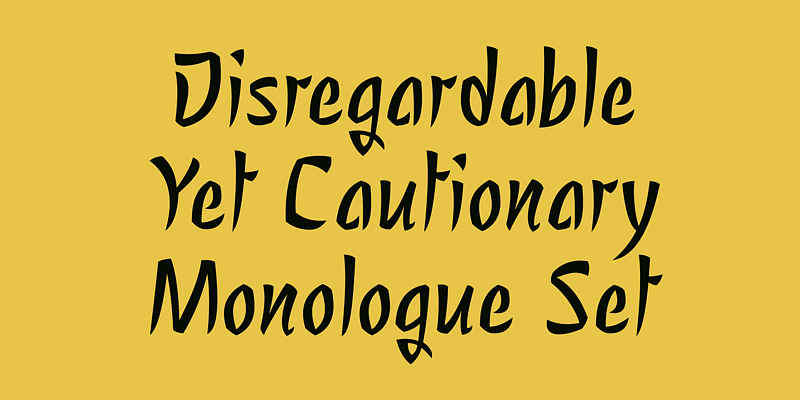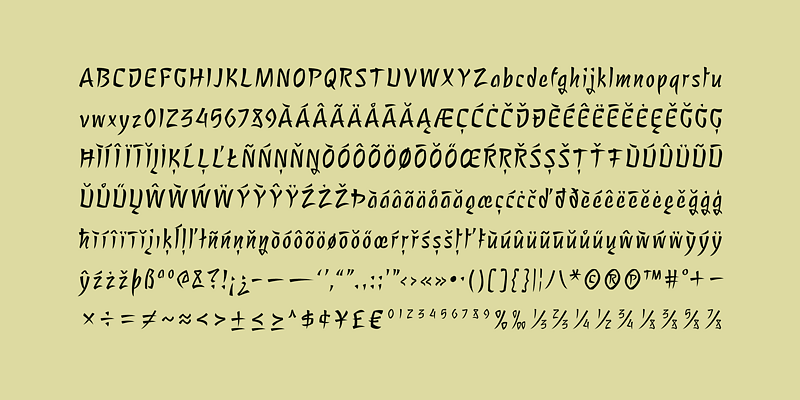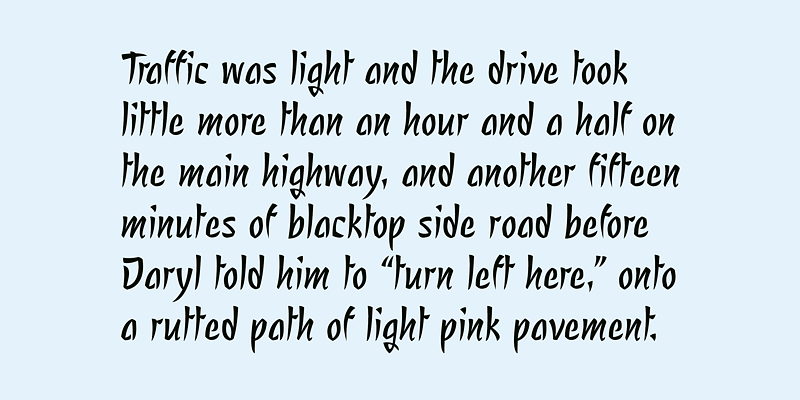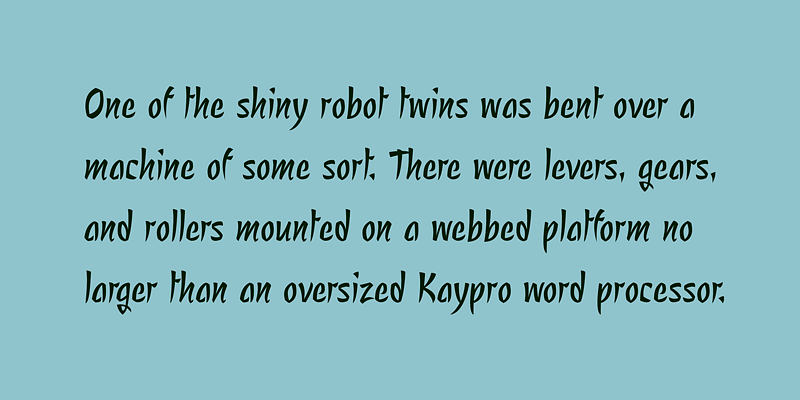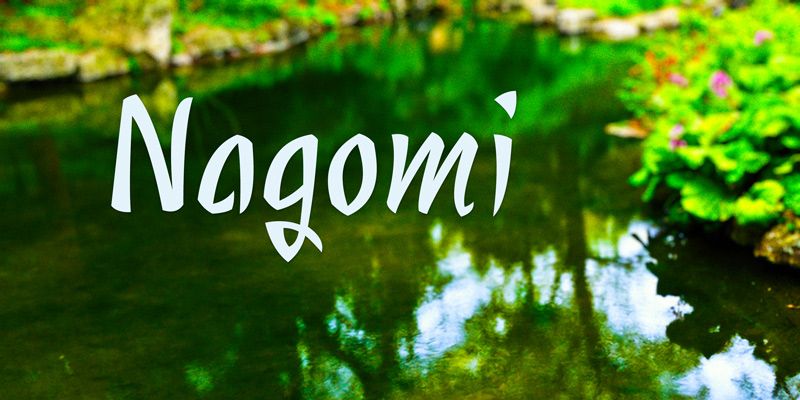
Nagomi is a brush-inspired display face based on calligraphy by Chikako Larabie. Its strokes bring a human gesture to a short line without relying on a rigid geometric system. The controlled movement can lend calm to a restaurant name, wellness identity, cultural event, or quiet title. It has the presence of writing made by a person, with enough composure to sit alongside carefully arranged imagery and materials.